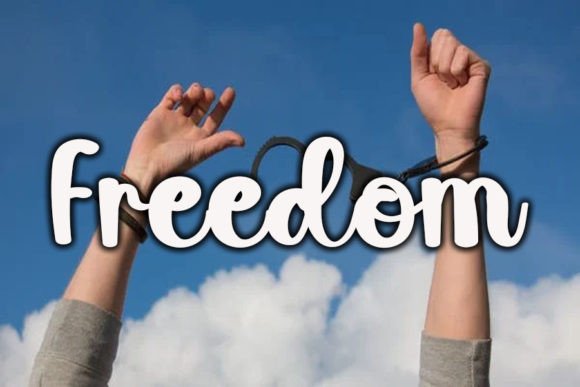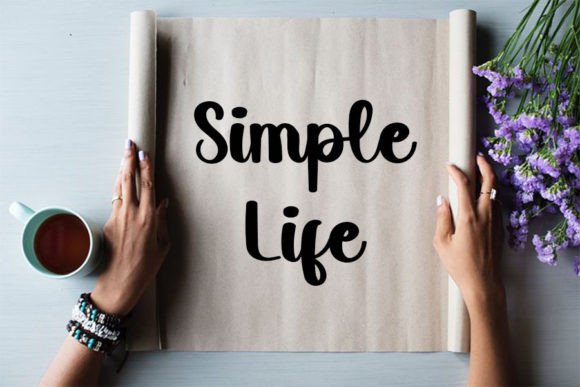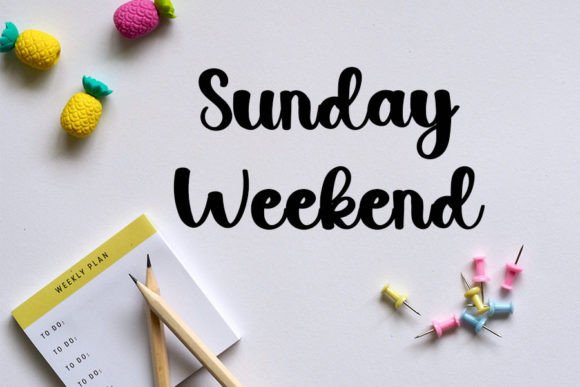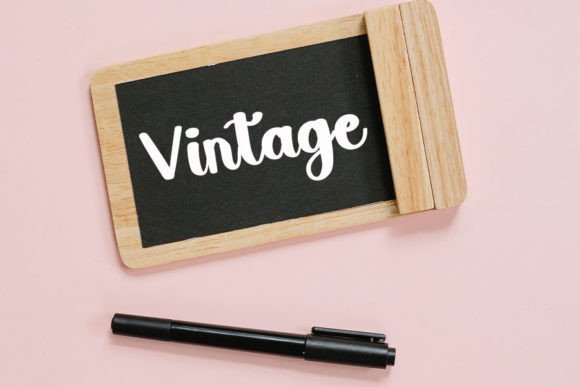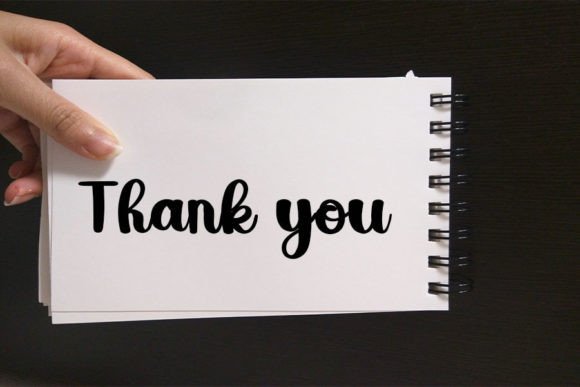
Introducing the Grinch Font: A Magical Handwritten Font for Designers and Crafters
Are you on the hunt for a unique and eye-catching font to elevate your designs, branding, and DIY projects? Look no further than the Grinch Font, a magical handwritten font that combines elegance, cleanliness, and a touch of quirkiness. In this article, we’ll dive into the world of Grinch Font, exploring its features, benefits, and uses, as well as provide tips and inspiration for designers and crafters.
The Story Behind Grinch Font
Grinch Font is a carefully crafted handwritten font, designed to bring a touch of magic to your designs. With its clean lines, elegant curves, and subtle quirks, this font is perfect for those who want to add a personal touch to their work. Whether you’re a designer, crafter, or DIY enthusiast, Grinch Font is sure to captivate your audience and leave a lasting impression.
Key Features of Grinch Font
- Magical Handwritten Style: Grinch Font boasts a whimsical, handwritten style that’s both elegant and playful.
- Clean and Quirky: This font combines clean lines and curves with subtle quirks, making it perfect for designs that require a touch of personality.
- Versatile: Grinch Font is suitable for a wide range of applications, from logos and branding to social media graphics and DIY projects.
- Elegant and Sophisticated: Despite its playful nature, Grinch Font exudes elegance and sophistication, making it perfect for high-end designs and projects.
Benefits of Using Grinch Font
So, why choose Grinch Font for your designs and projects? Here are just a few benefits of using this amazing font:
- Stand Out from the Crowd: Grinch Font’s unique style ensures that your designs will stand out from the crowd and grab attention.
- Add a Personal Touch: With Grinch Font, you can add a personal touch to your designs, making them more relatable and engaging.
- Enhance Brand Identity: This font can help you create a consistent brand identity that reflects your values and personality.
- Endless Creative Possibilities: Grinch Font’s versatility means you can use it for a wide range of projects, from digital designs to handmade crafts.
Using Grinch Font for Design and Crafting Projects
Grinch Font is an incredibly versatile font that can be used for a wide range of design and crafting projects. Here are a few ideas to get you started:
- Logo Design: Create a unique and memorable logo for your business or brand using Grinch Font.
- Social Media Graphics: Use Grinch Font to create eye-catching social media graphics that showcase your personality and brand.
- DIY Crafts: Add a touch of elegance and whimsy to your handmade crafts, such as cards, gift tags, and scrapbook pages.
- Branding and Packaging: Use Grinch Font to create a consistent brand identity across your packaging and branding materials.
Tips for Getting the Most Out of Grinch Font
To get the most out of Grinch Font, here are a few tips to keep in mind:
- Experiment with Colors: Grinch Font looks amazing in a range of colors, so don’t be afraid to experiment and find the perfect hue for your design.
- Mix and Match: Combine Grinch Font with other fonts and design elements to create a unique and visually appealing design.
- Play with Size and Style: Grinch Font can be used in a range of sizes and styles, so experiment to find the perfect fit for your design.